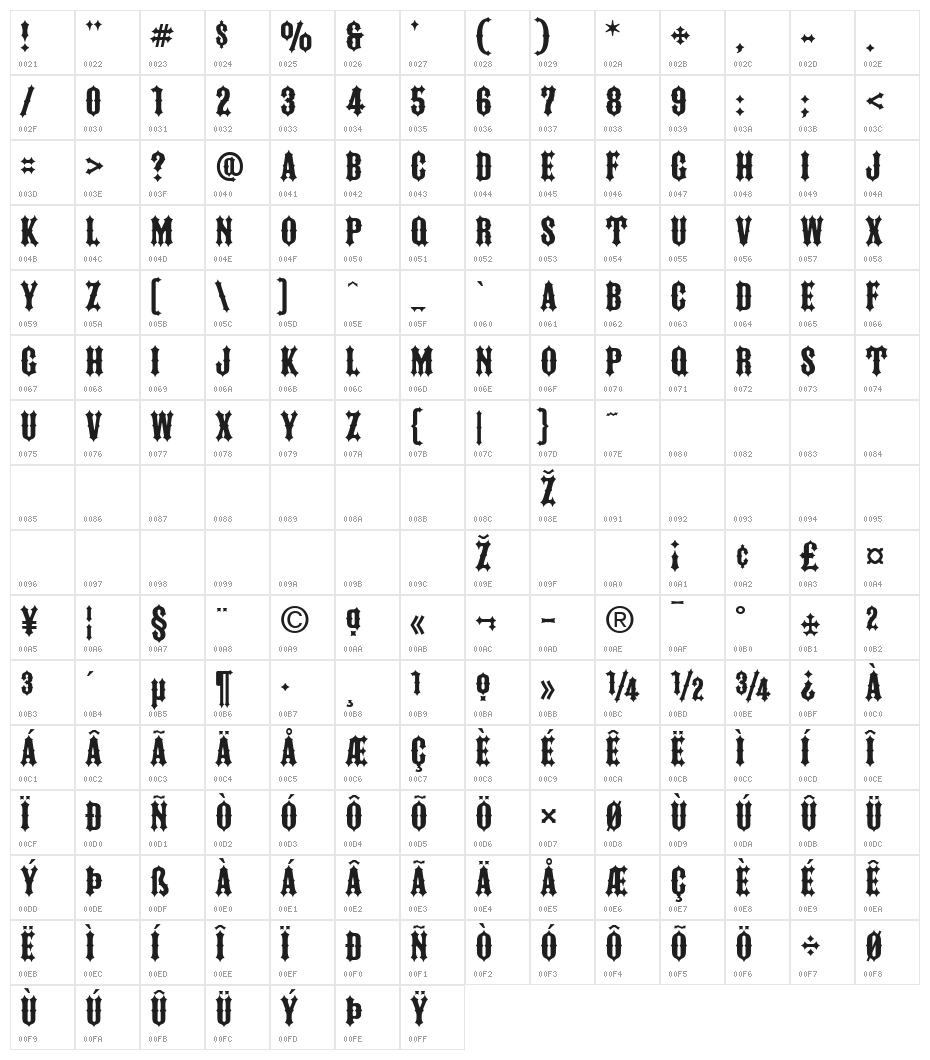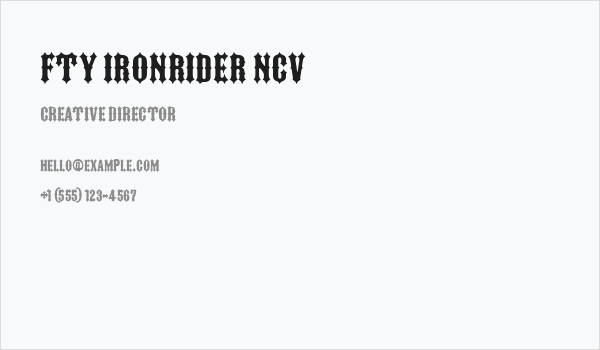
FTY IRONRIDER NCV Font
FTY IRONRIDER NCV Description
This font features a bold and striking design with a distinctly decorative style. The characters are heavily stylized with sharp, angular edges and a unique, almost gothic appearance. The uppercase letters are particularly prominent, exhibiting a strong presence that demands attention. The numbers and special characters maintain the same boldness and intricate detailing, making them stand out. This font is ideal for projects that require a dramatic and eye-catching typeface, such as posters, logos, or branding materials. Its unique style is reminiscent of vintage or retro themes, adding a touch of nostalgia and flair to any design.
| Overall Style | Vintage, Decorative |
| Proposed Projects | Ideal for posters, logos, branding, and any design needing a dramatic, vintage touch. |